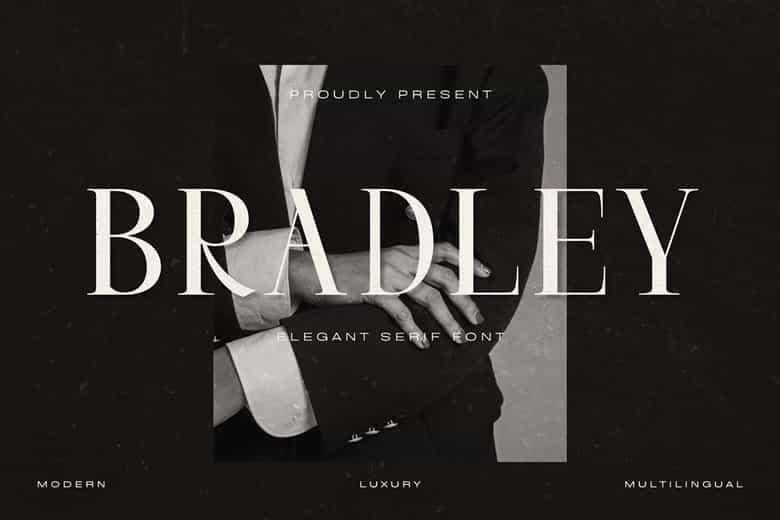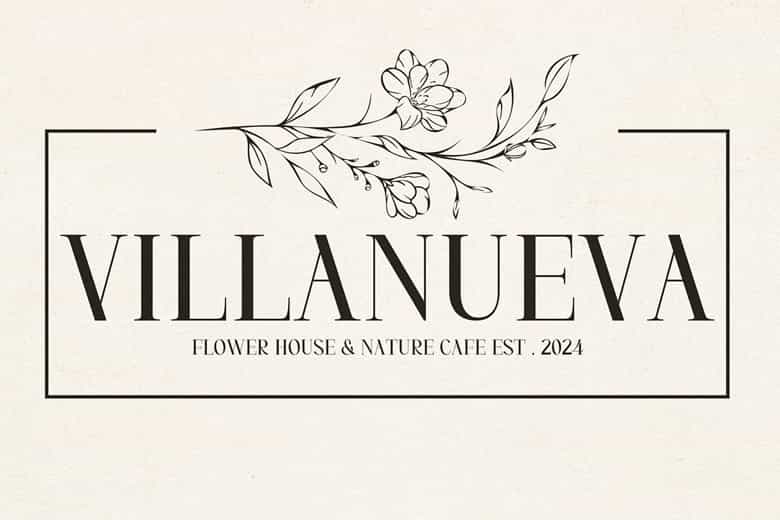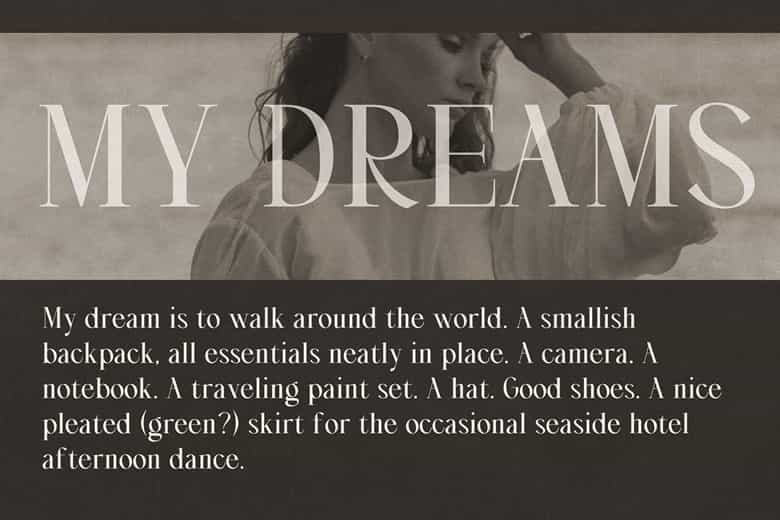
Bradley is a new modern and elegant serif typeface. Fall in love with its amazingly flexible aesthetic and apply it for making the stunning wedding invitations, unique art for stationery products, catchy post on social networks, and many others.